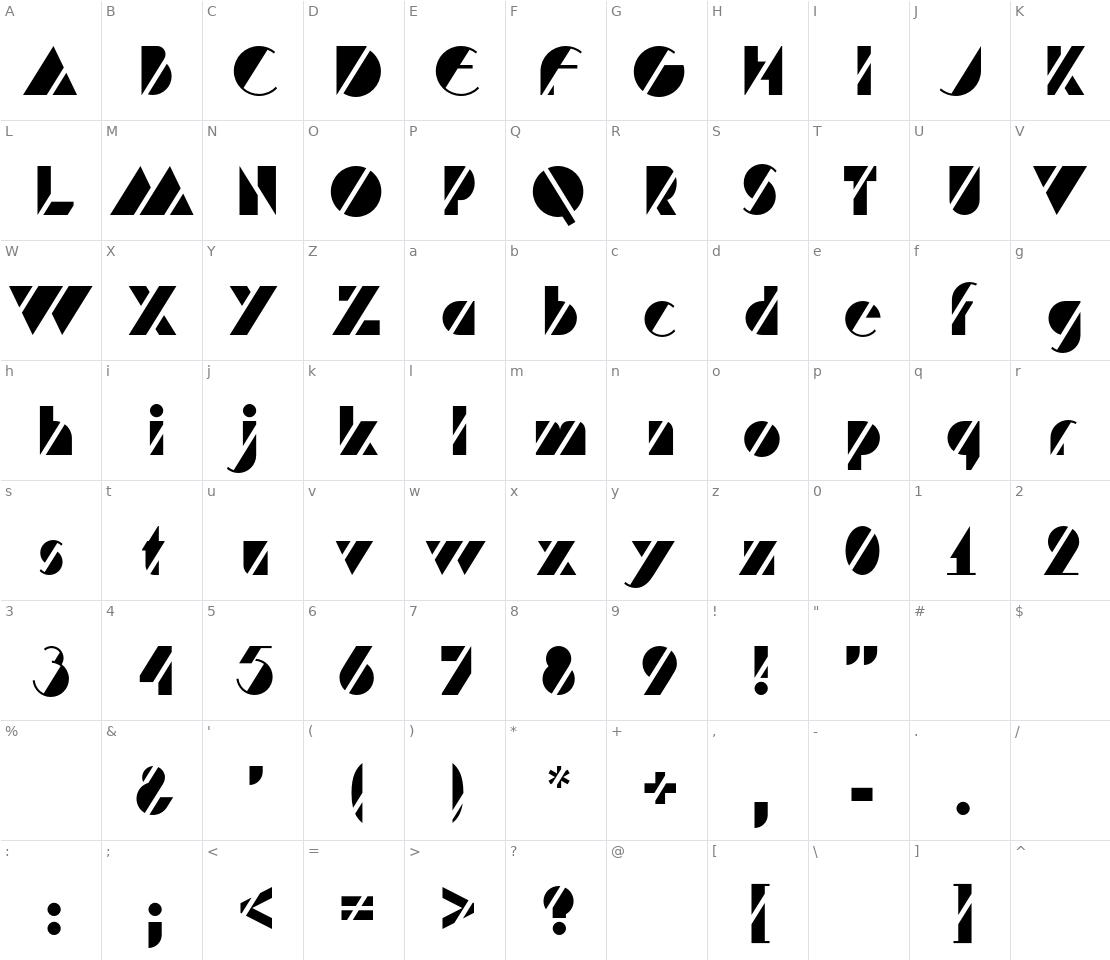
HFF Code Deco
HFF Code Deco is a bold, geometric display face from Have Fun with Fonts that channels the sharp symmetry and vertical emphasis of 1920s and '30s Art Deco lettering. Stencil-cut details break up the heavy strokes, adding a layered, architectural quality to the letterforms. A strong pick for headlines, posters, and branding that needs to evoke vintage glamour with real structural backbone.